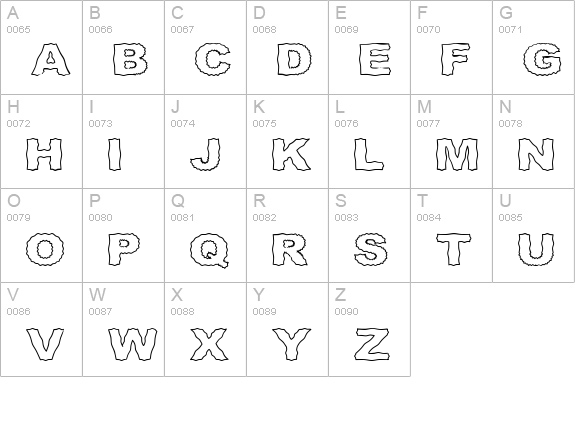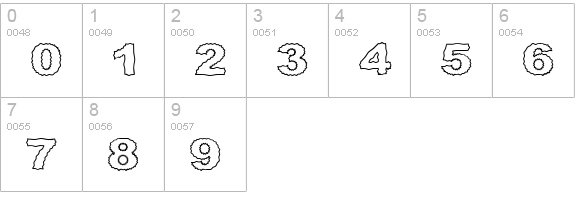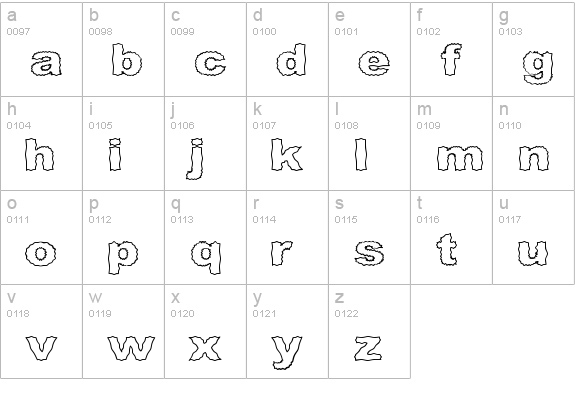
Roughhewn Outline Font Details
Introducing Roughhewn Outline font, a striking and dynamic typeface that exudes a rugged and handcrafted aesthetic. This font features bold lines and rough edges, giving it a unique and distinctive look perfect for making a statement in your designs. The Roughhewn Outline font is versatile and can be used for a variety of projects, from posters to logos to social media graphics. One of the best things about the Roughhewn Outline font is that it is completely free to download at FontsMarket.com. This means that you can easily access this eye-catching font without any cost, making it a great choice for designers on a budget or anyone looking to add a touch of creativity to their projects. Don't miss out on this fantastic opportunity to enhance your designs with the Roughhewn Outline font – download it today and start creating stunning visuals that are sure to stand out!